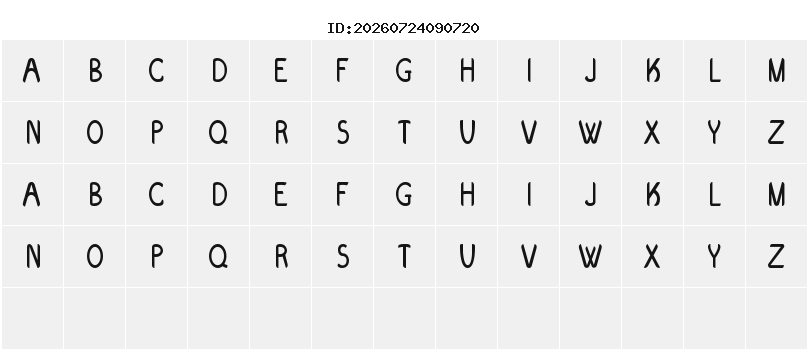
Evolve Preview
• Font Name: Evolve
• Full Font Name: Evolve
• Character Count: 52
About Evolve.ttf
Evolve.ttf is a modern, elegant sans-serif font designed for ultimate readability and visual harmony. Perfect for branding, headlines, web design, and print materials.